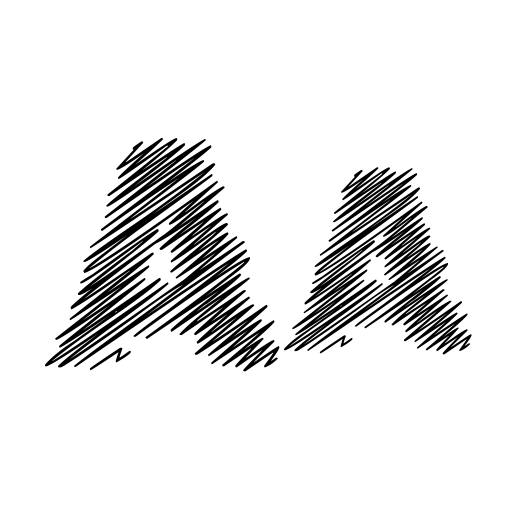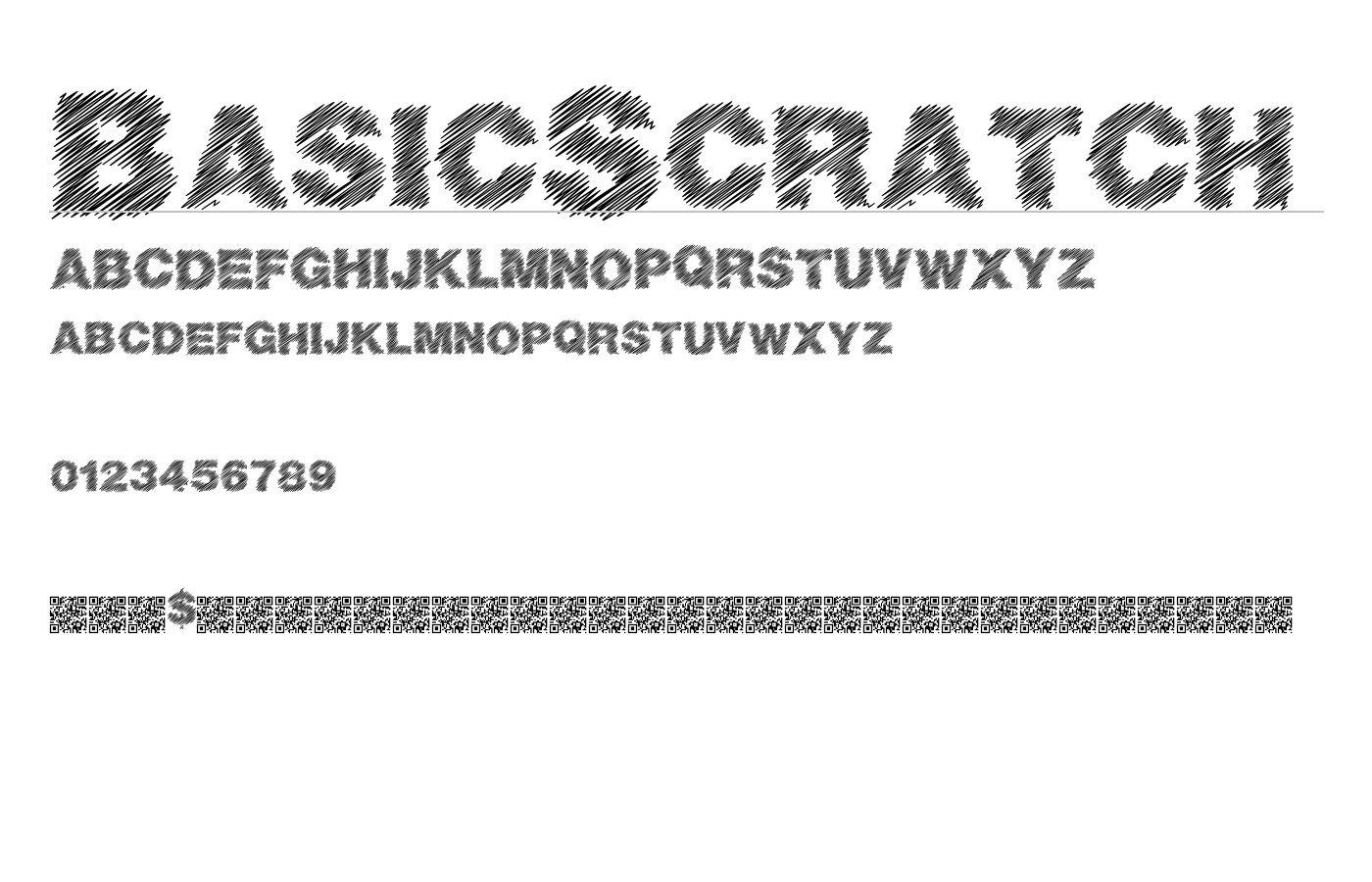
BasicScratch is a bold, sans serif font with a distinctive hand-sketched, textured style that mimics crosshatch shading. Its strong weight and somewhat condensed letterforms give it a commanding presence while the rough, artistic strokes add a creative and informal touch. This font works well for eye-catching headlines, posters, and creative branding where a bold, handcrafted look is desired to convey energy and uniqueness.
BasicScratch Font
About BasicScratch Font